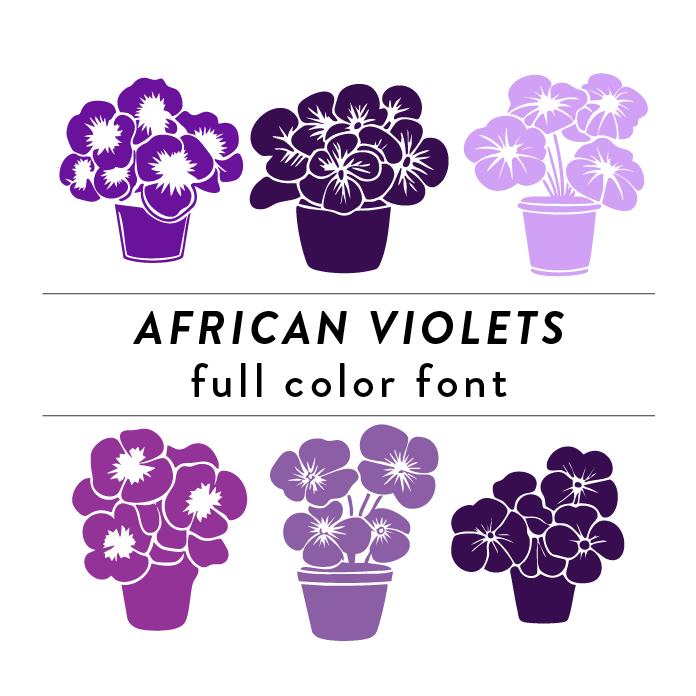
African Violets Full Color Font is a decorative font design featuring intricate floral patterns inspired by African violets. The design is vibrant and colorful, perfect for adding a touch of elegance to any home decor or creative project. The font style is detailed and ornate, making it a standout choice for invitations, home decor, apparel.